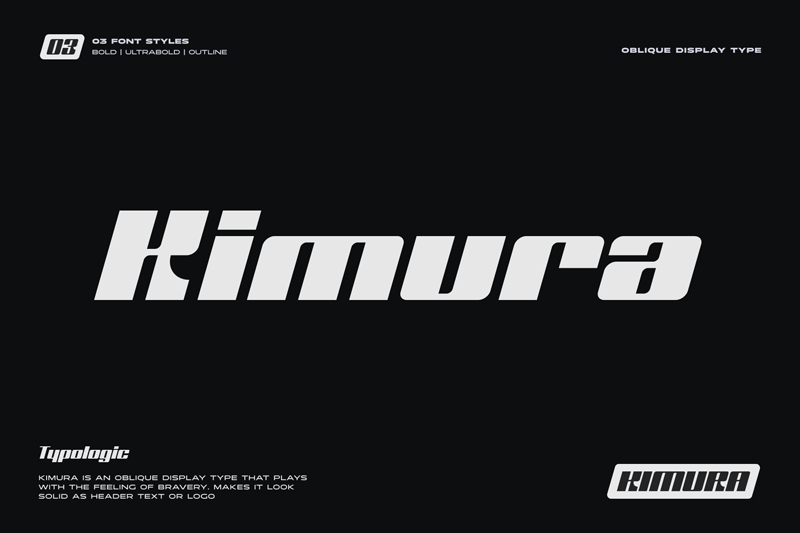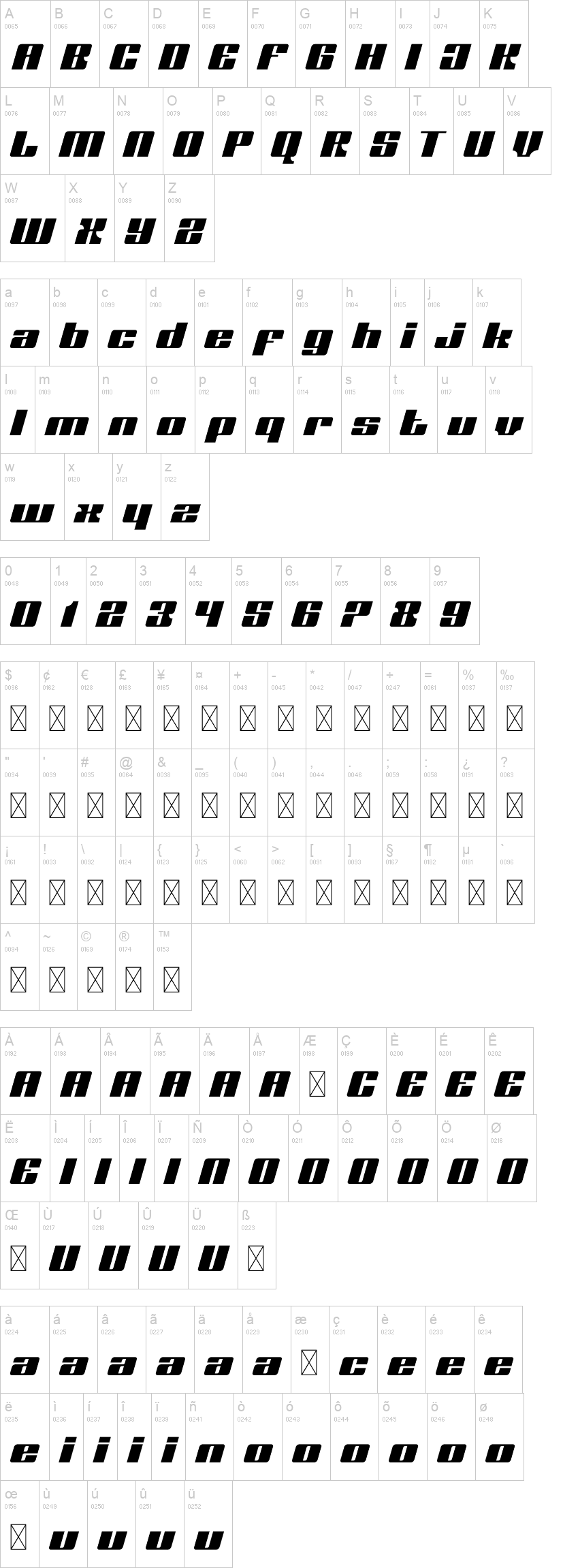
Note of the authorKimura is an oblique display type that plays with the feeling of bravery. With a shape that contrasts between vertical and horizontal lines makes it look solid as header text or logo. Kimura is available in two weights: bold, ultra bold and an outline version.